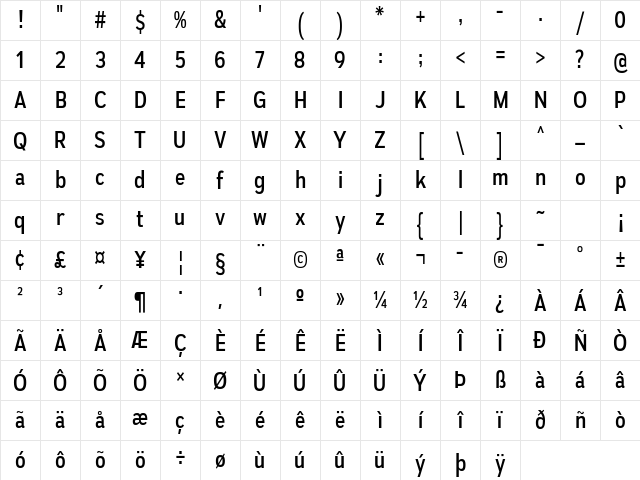
Autoradiographic Regular
Design Context for Autoradiographic
Autoradiographic is a composed and adaptable typeface that performs quietly and consistently across a wide range of design contexts.